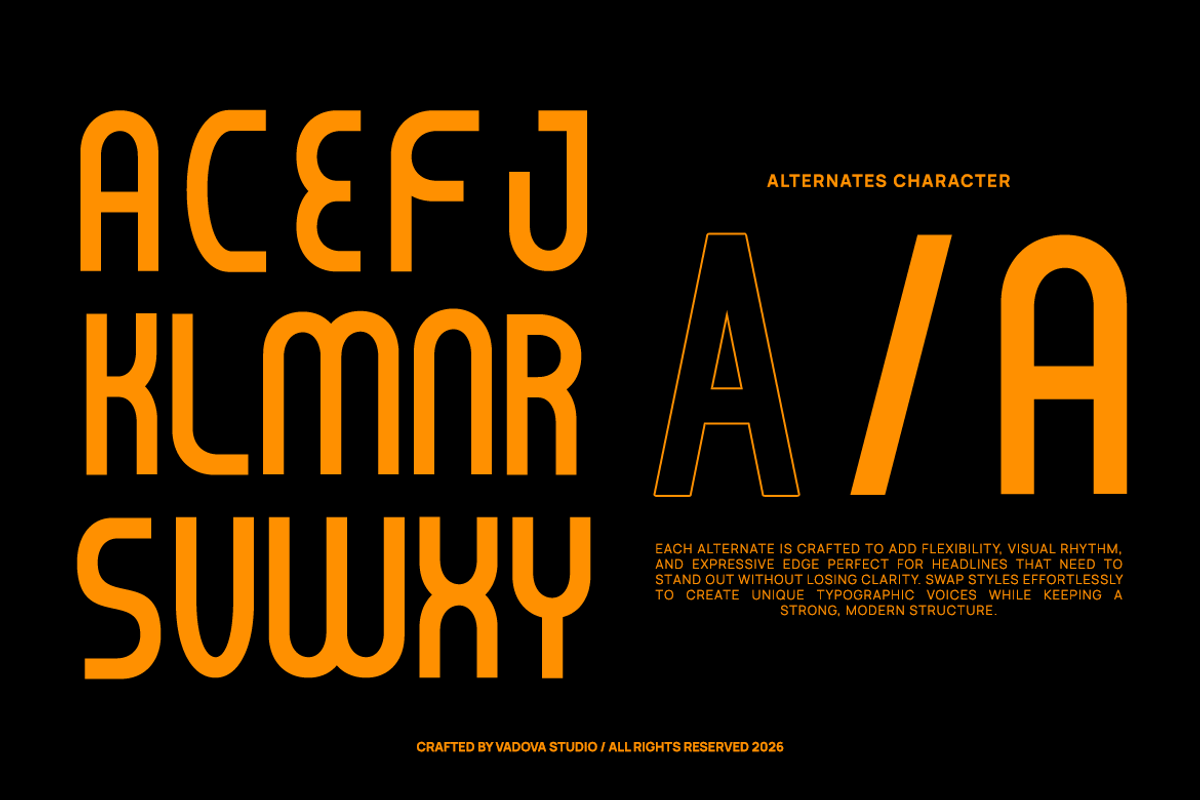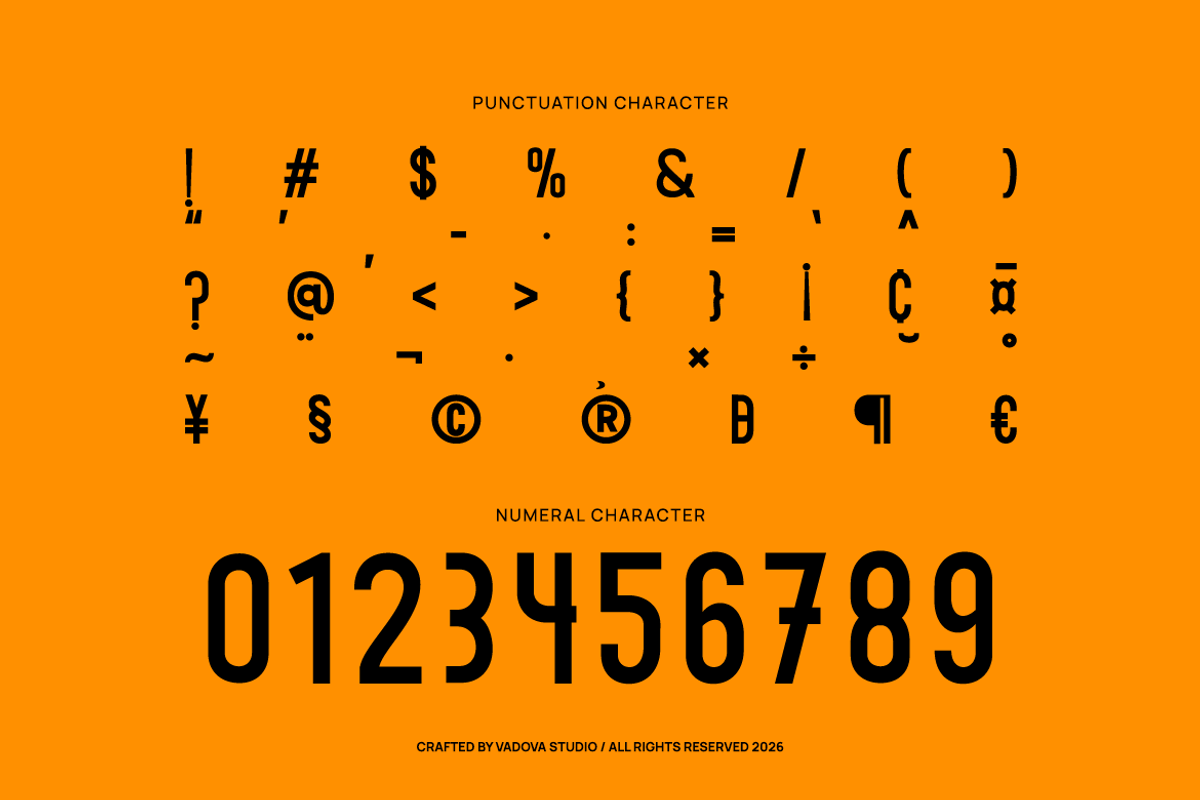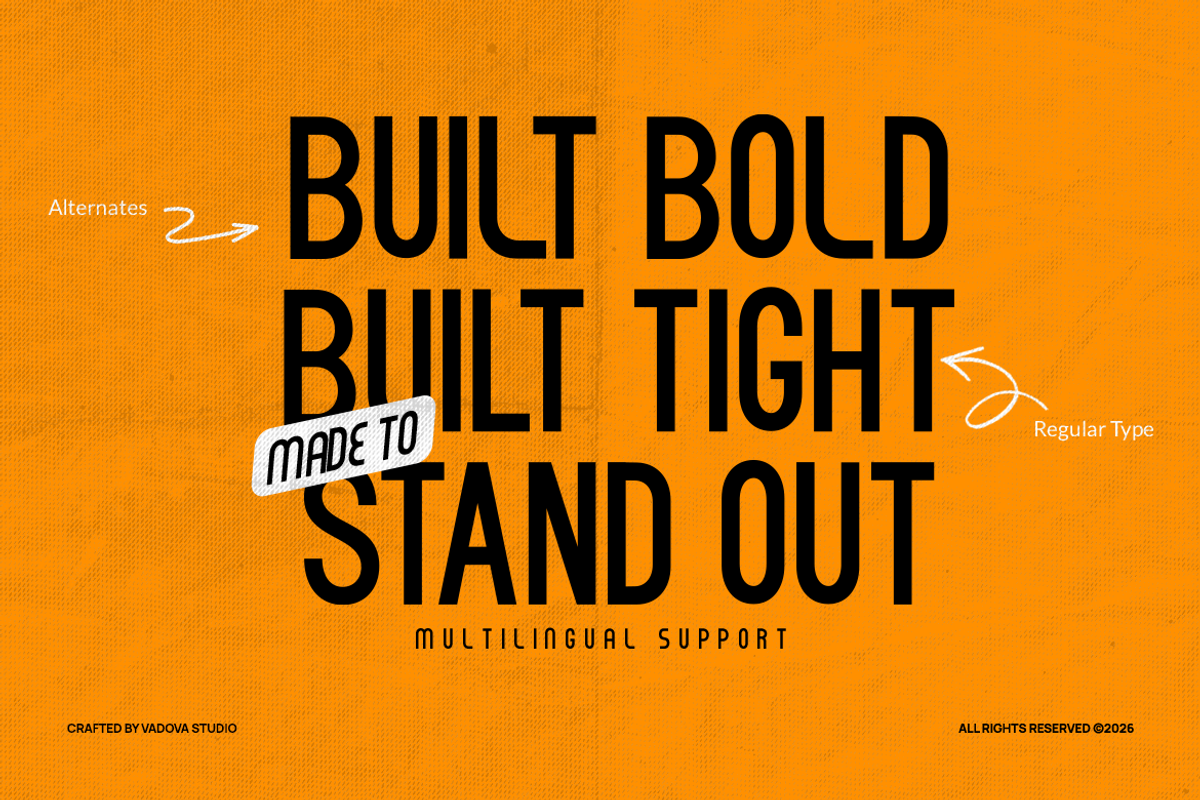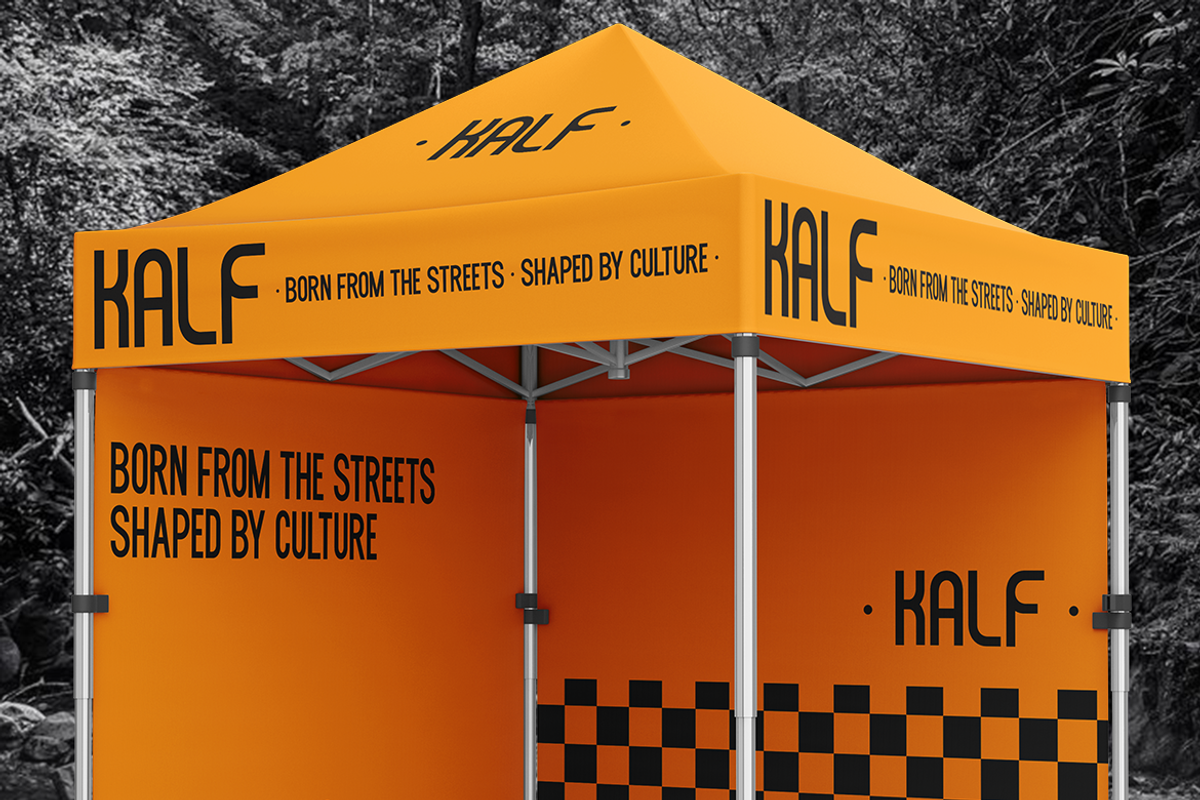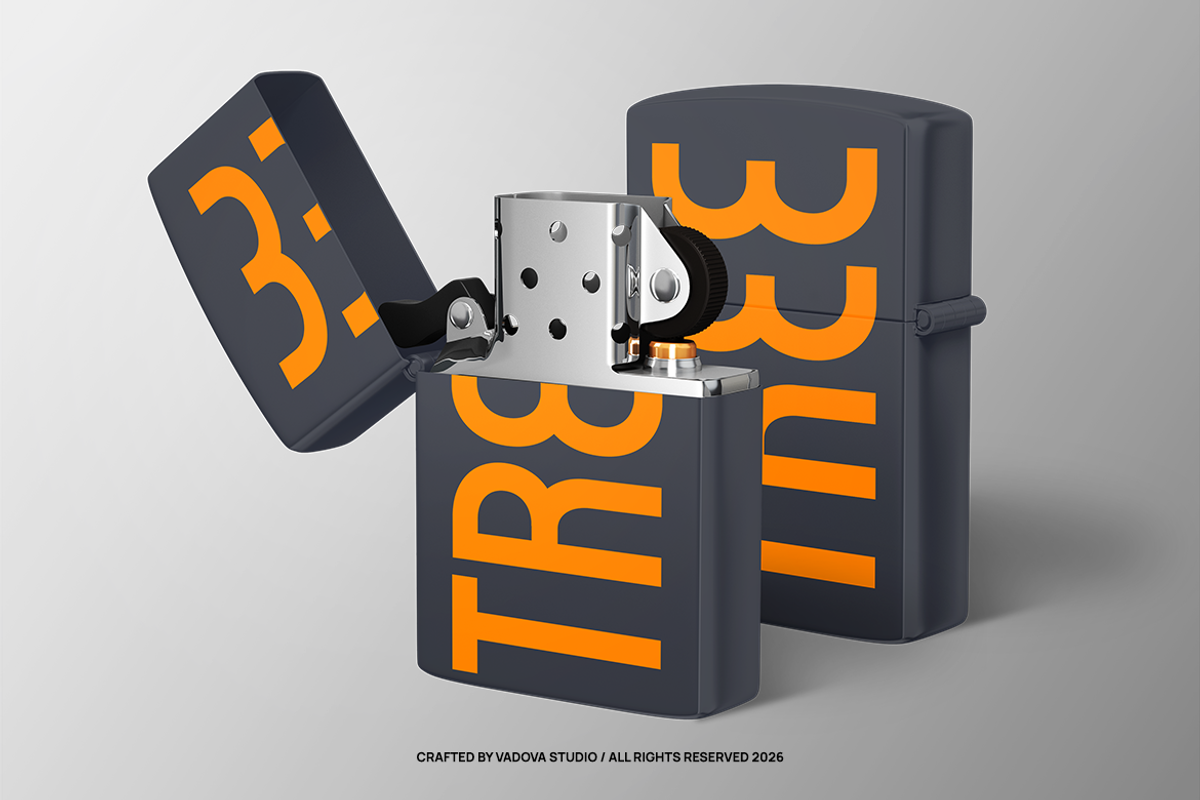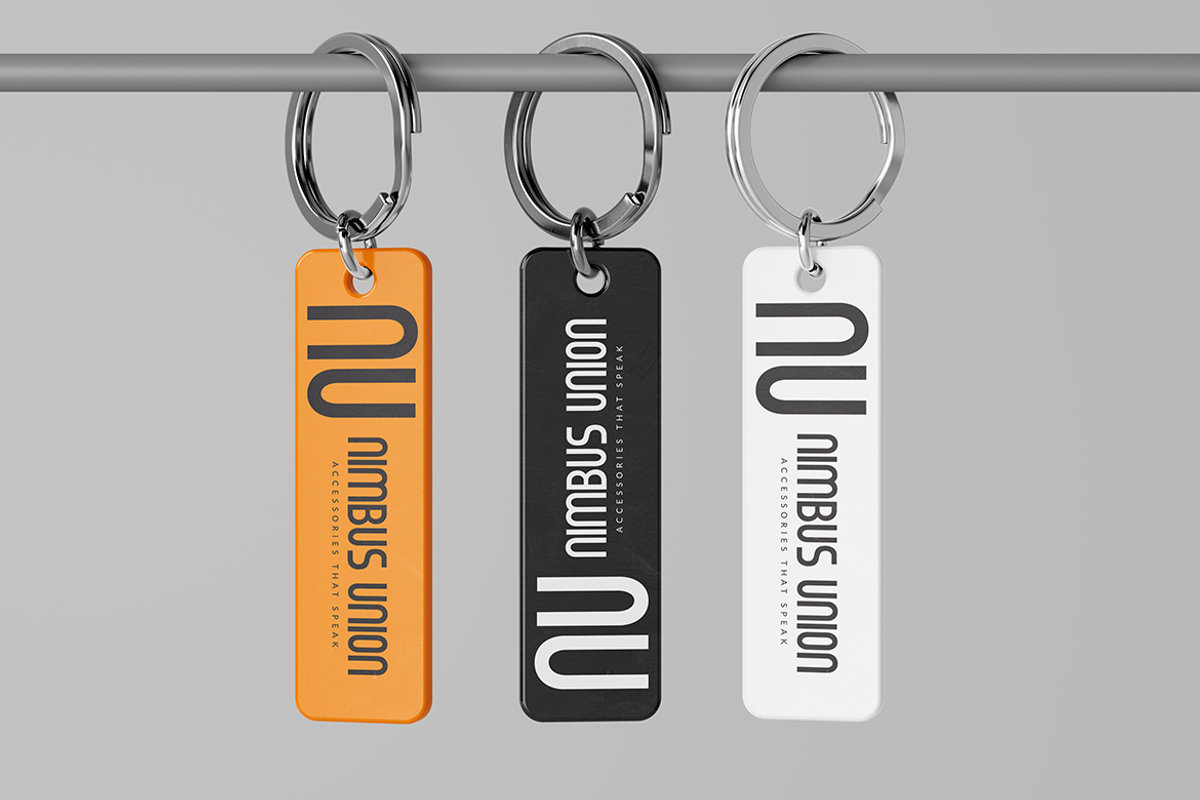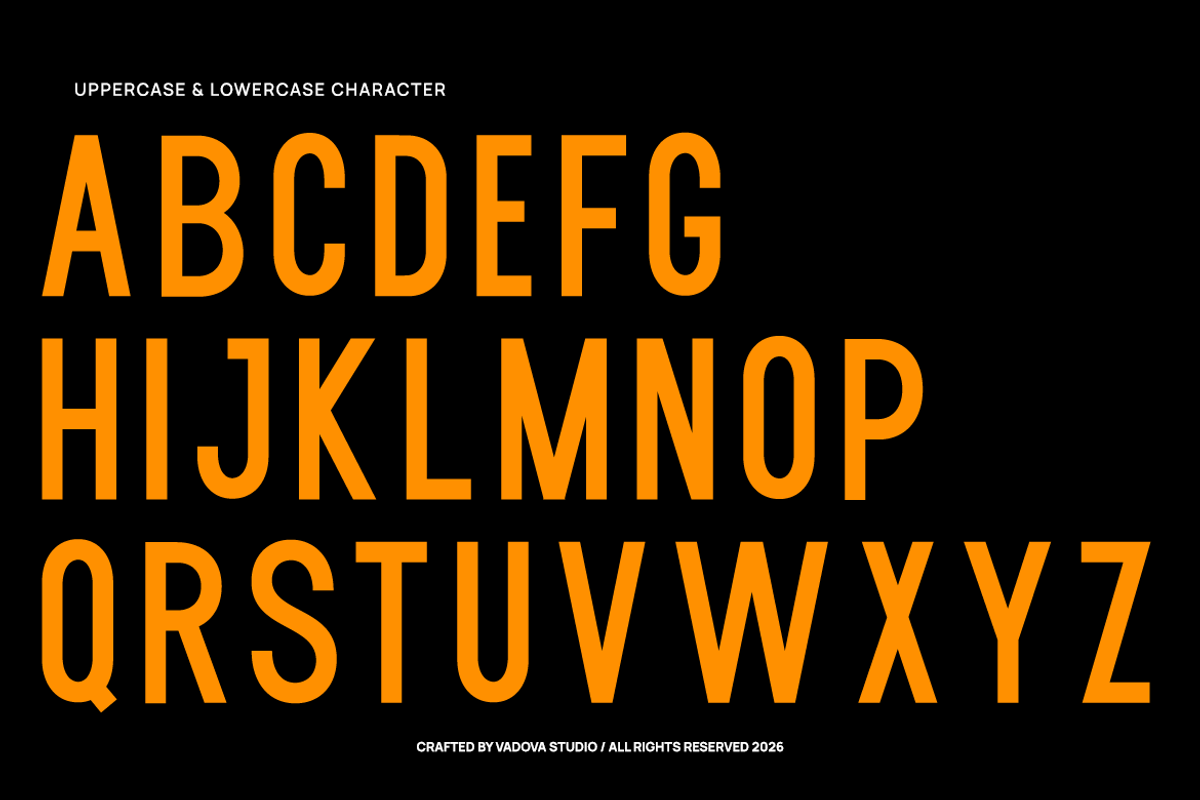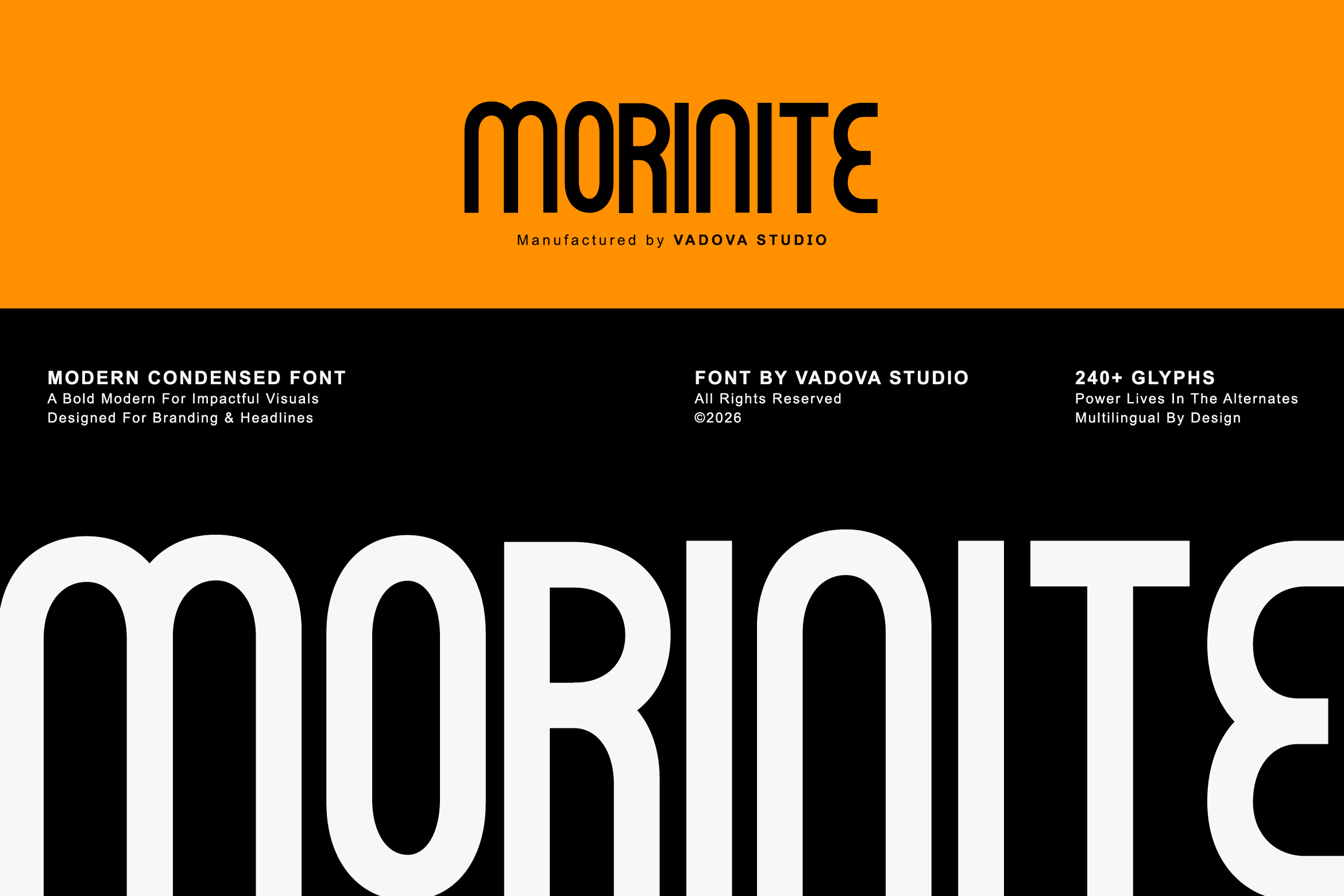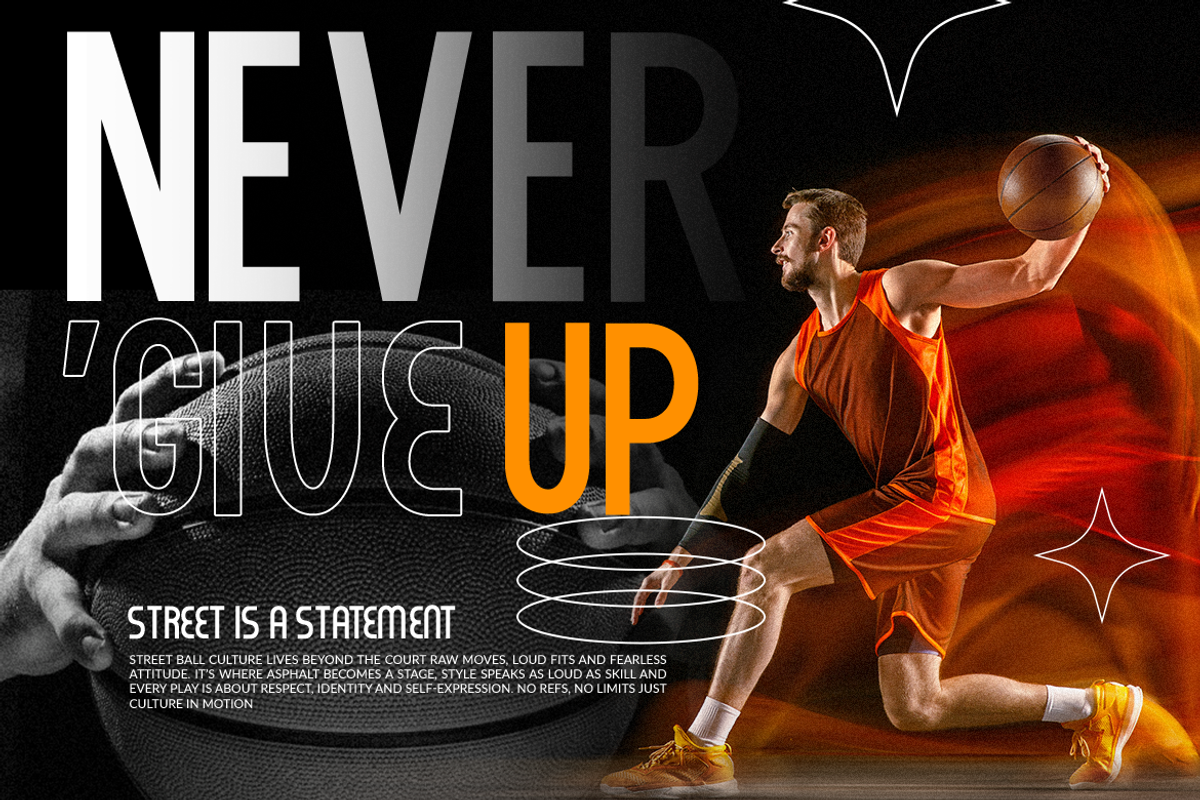
Morinite Modern Condensed Font
Morinite is a bold modern condensed sans serif font built with tall proportions, tight spacing, and strong geometric structure. The letterforms feature clean edges, solid strokes, and a compact rhythm that creates a powerful and confident visual presence. Designed for maximum impact, it delivers sharp readability in headlines while maintaining clarity across large-scale layouts.
This font delivers a strong, confident, and contemporary tone, making it highly effective for branding systems, posters, headlines, editorial layouts, tech products, corporate identities, packaging, and marketing materials. Its condensed proportions maximize space while maintaining bold presence, ensuring messages stand out clearly in both print and digital designs.
Design Features -Bold condensed structure with tall proportions for maximum visual impact
- Strong geometric letterforms with clean, straight edges and solid strokes
- Tight spacing and compact width for efficient, space-saving headlines
- Consistent stroke weight for sharp clarity and modern industrial feel
- Optimized readability for large titles, posters, and bold display typography
- Brand identities that require bold, confident, and high-impact typography
- Posters, headlines, and advertising layouts that need strong visual presence
- Sports, automotive, tech, and streetwear branding with an energetic tone
- Packaging, labels, and merchandise designs with compact space efficiency
- Social media graphics, banners, and campaigns that demand attention fast
Morinite delivers strong typography that cuts through the noise